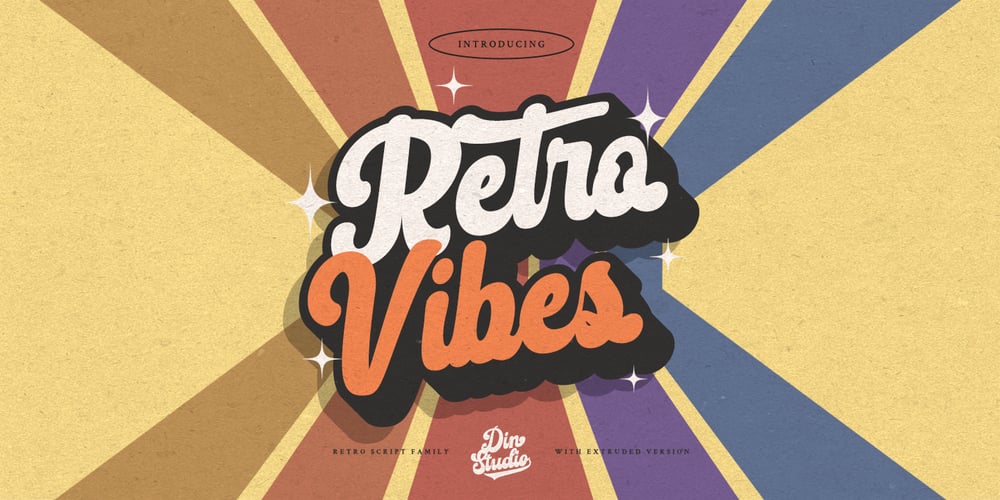
Retro Vibes Font Family was designed by Donis Miftahudin and published by Din Studio. Retro Vibes contains 4 styles and family package options. Get ready to transcend to a world of magic, laughter, and butterflies. Your projects will spark delight and engage everyone who sees it! Wait no more, we will give you the best choice.Retro Vibes-A Script FontRetro Vibes is a bubble-styled, handcrafted font inspired by designs and illustrations from the 1960s. It’s a fine-looking font, bought to life by a splendidly scratchy halftone gradient that aims to bring out a retro vibes. This font comes in regular and italic versions.Retro Vibes includes Multilingual Support to make your branding reach a global audience. Features: Ligatures Stylistic Set Swashes PUA Encoded Numerals and Punctuation Thank you for downloading premium fonts from Din Studio